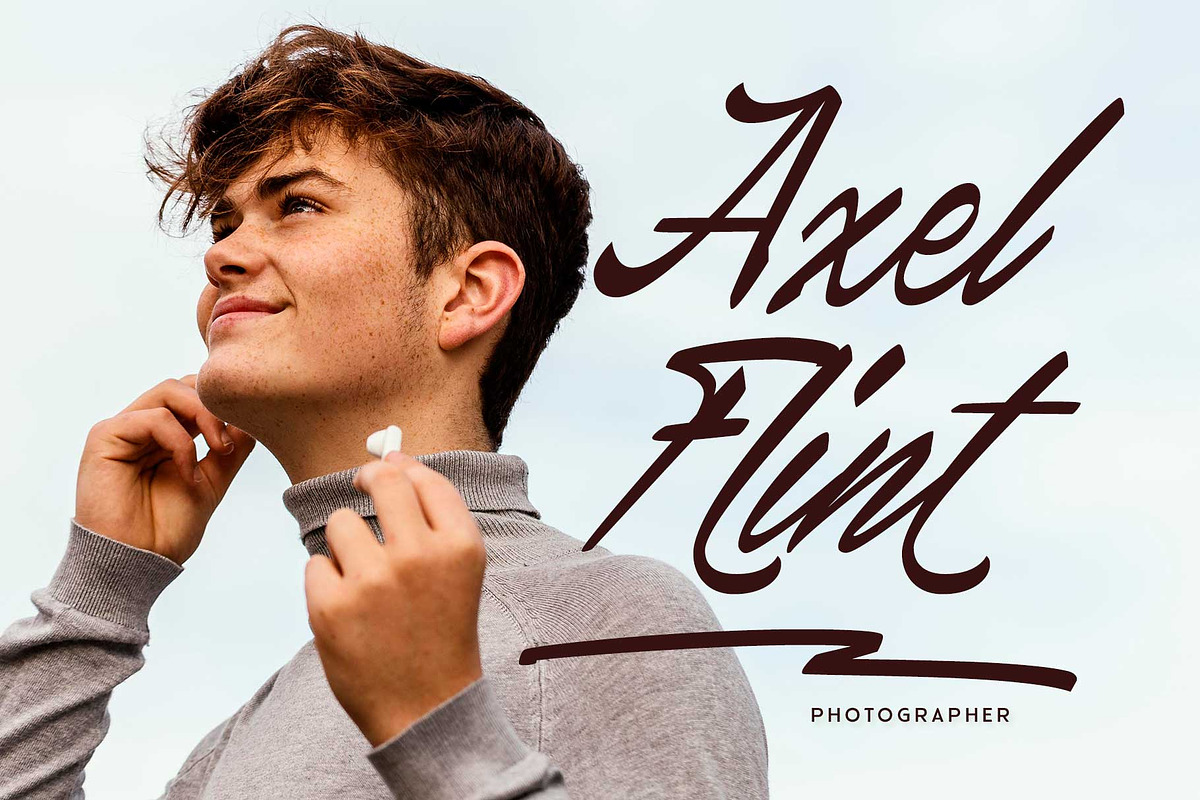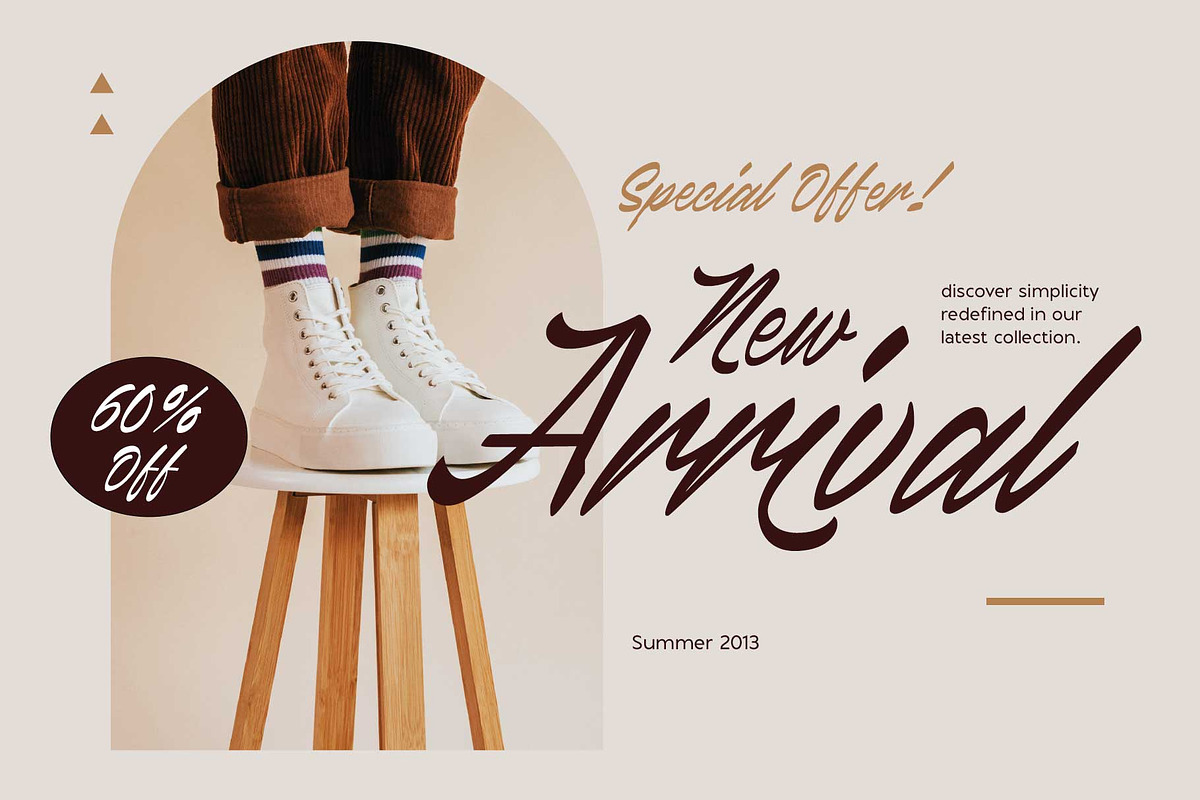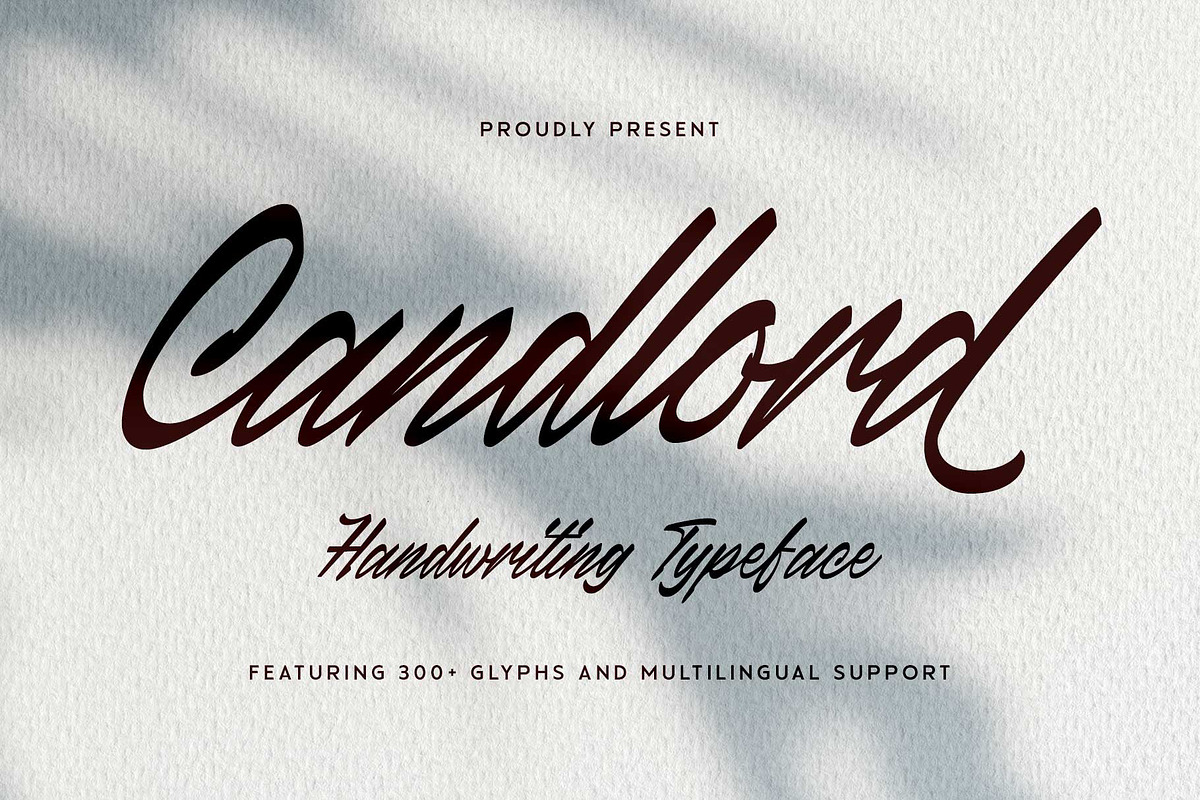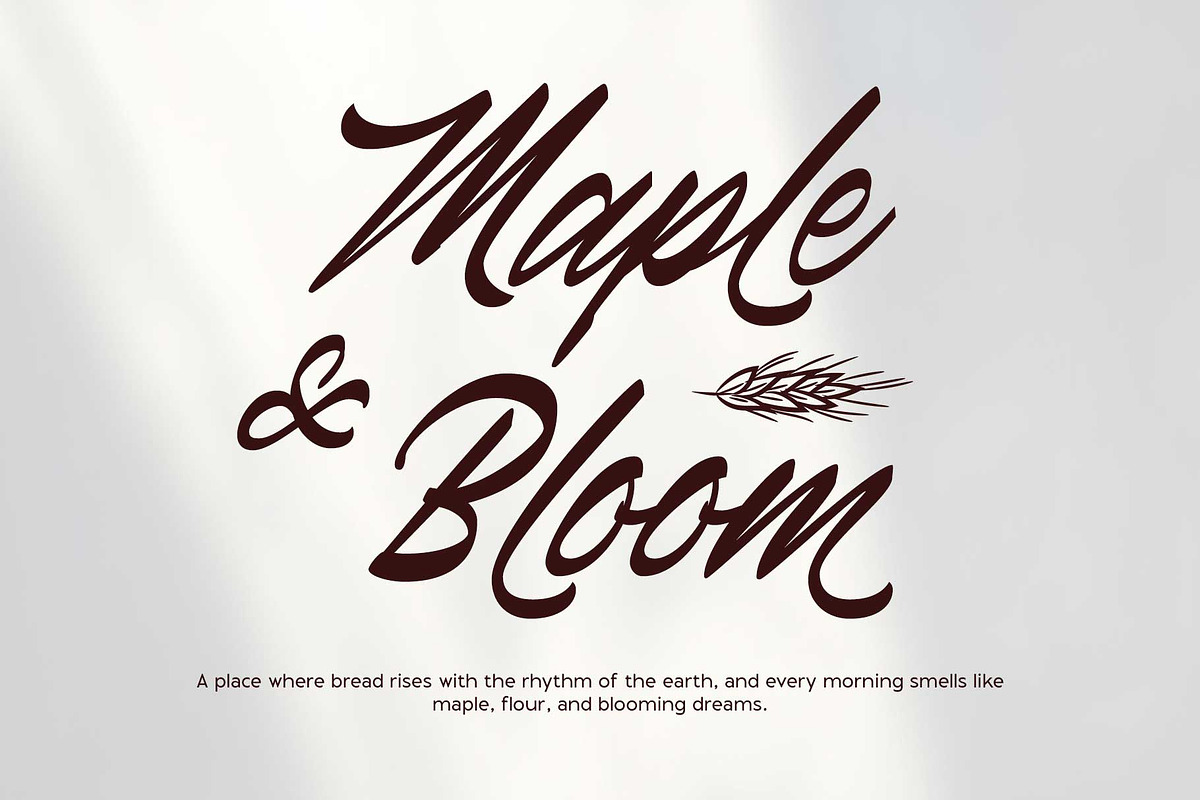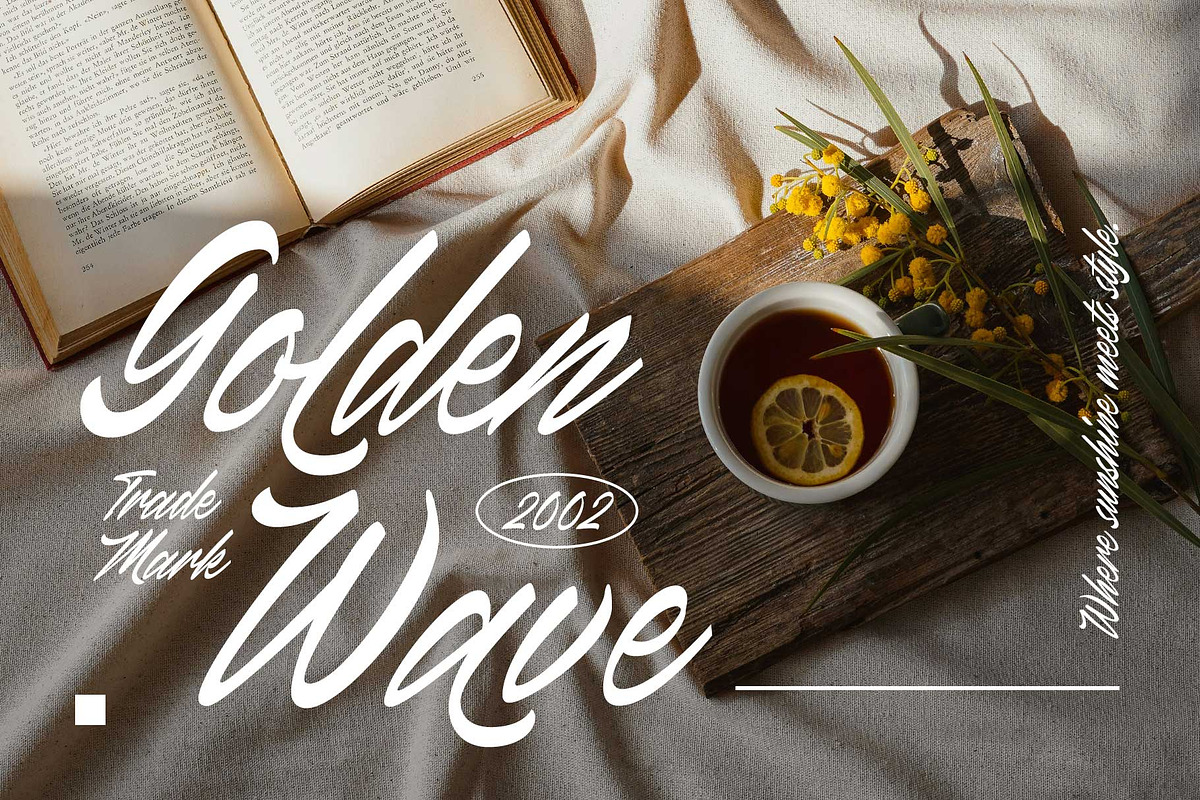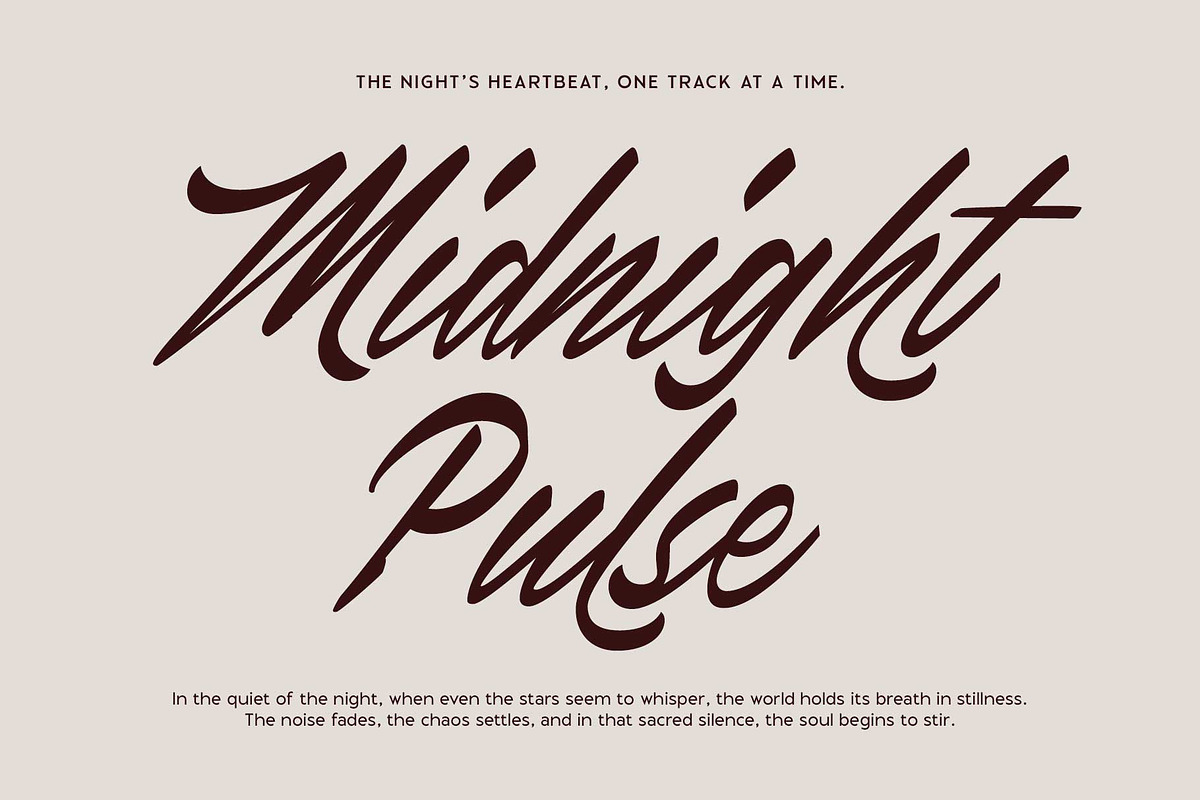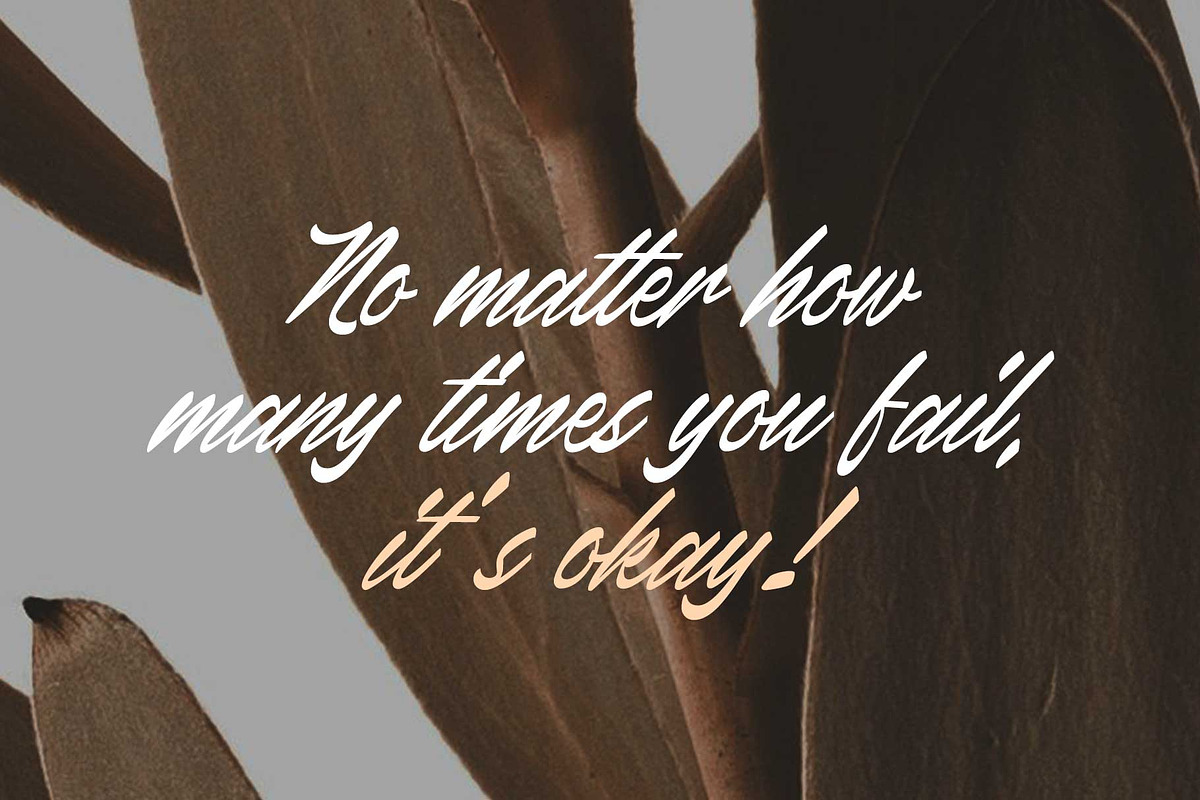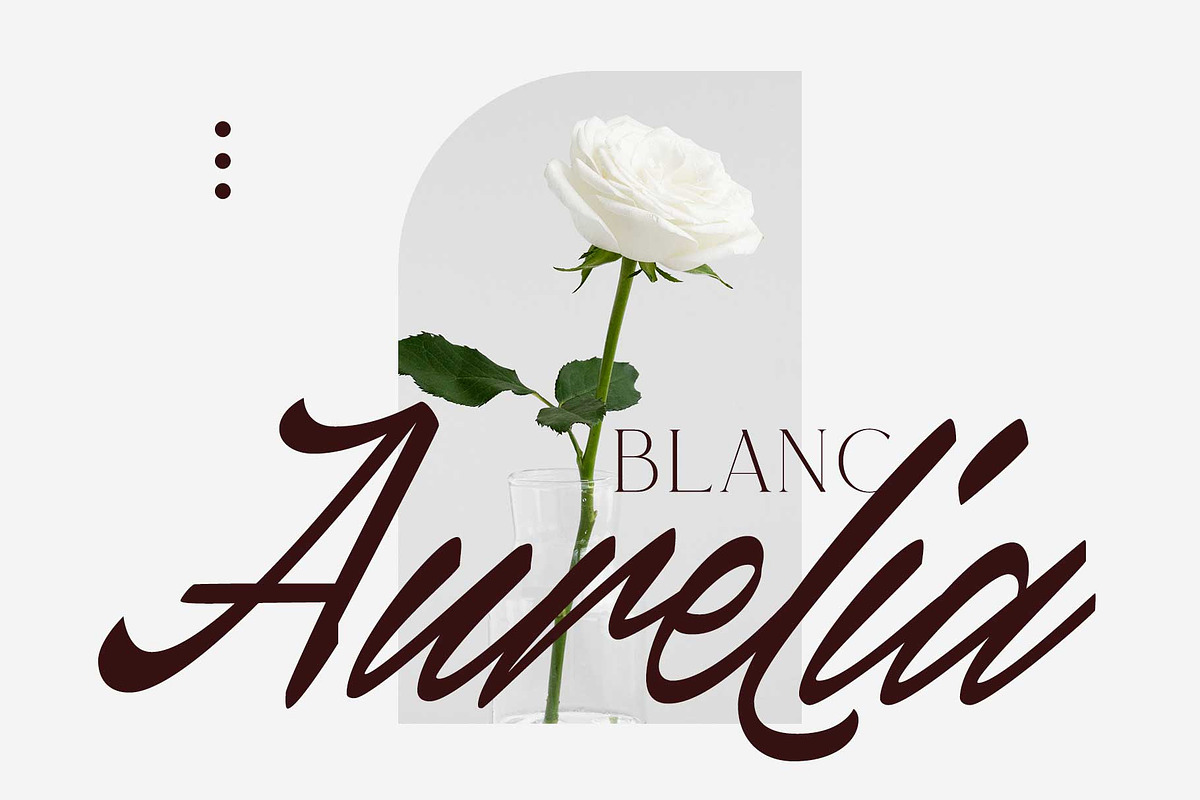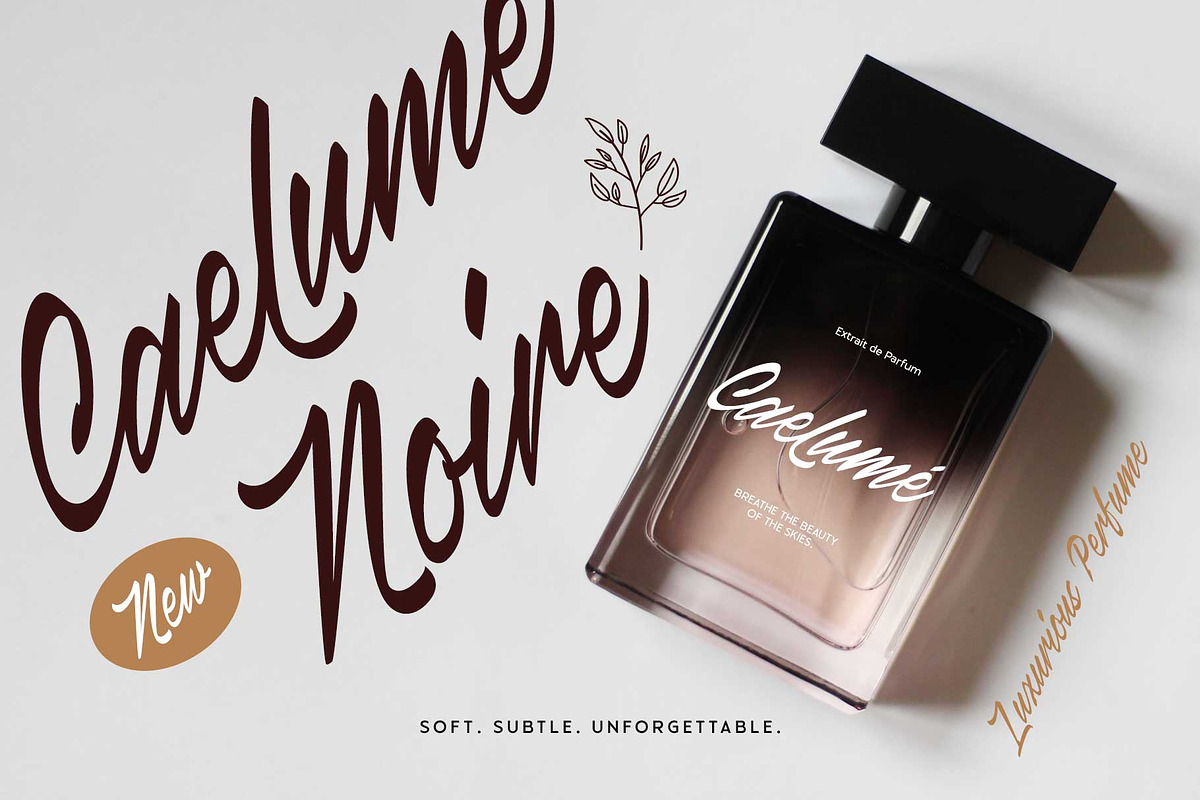
Canlord - Brush Font
Canlord is a playful brush font designed in a quick, handwritten style, featuring a set of stylistic alternates to add a unique typographic flair.
With its clean, simple lines, medium weight, and fun character, Canlord is perfect for a wide range of creative projects including logos, branding, fashion designs, packaging, greeting cards, wedding invitations, posters, motion graphics, headlines, and more.
- Stylistic alternates for added versatility